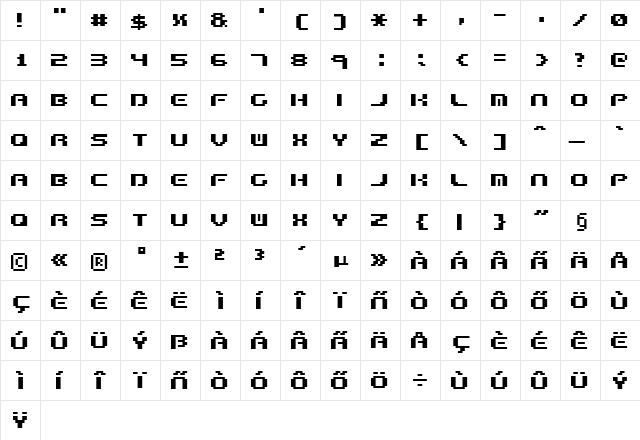
Formula too complex Regular
Design Context for Formula too complex Typeface
Formula too complex takes a measured approach to typography — its balanced proportions and neutral character make it a reliable workhorse for both digital and print work.